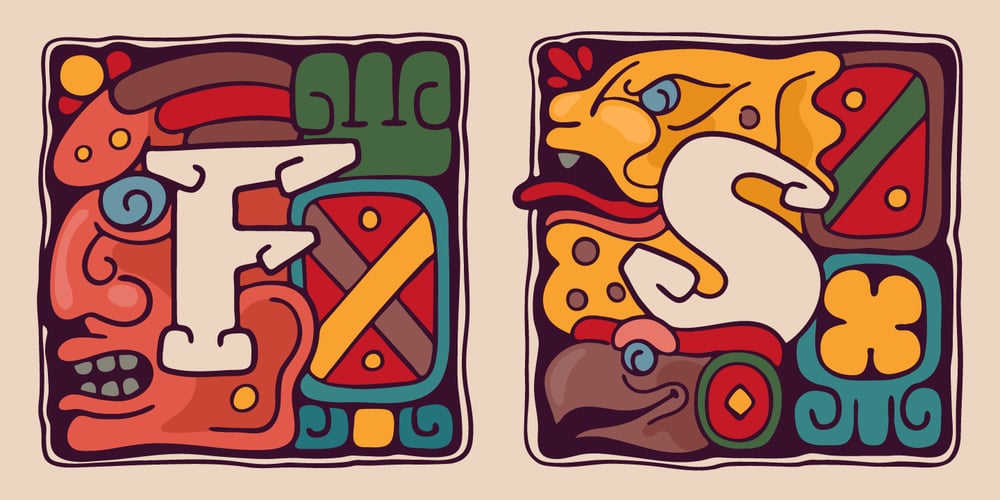
Aztec Initials Font Family was designed by Roman Korolev and published by Kaer. Aztec Initials contains 2 styles and family package options. Hey guys! Do you know this guys from ancient America? I’m happy to present you Aztec Initials Colored font!Each uppercase character made with unique illustration. Native American symbols with warrior, conqueror, skull, vulture, and leopard faces. Perfect for ethnic labels, sport emblem, tattoo design and tribal identity, etc.What you will get:* Colored and regular style* Uppercase only (lowercase glyphs are same)I hope you enjoy this font. Follow my shop to receive updates of products and the very hottest news! If you have any question or issue, please contact me: kaer.pro@gmail.com Please request to add additional characters and glyphs if you need! Thank you!—*You can use color fonts in PS since CC 2017, AI since CC 2018, ID since CC 2019, QuarkXPress since 2018, Pixelmator, Sketch, Affinity Designer Since macOS 10.14 Mojave, Paint.NET Windows only.**Please note that the Canva do not support color fonts!*